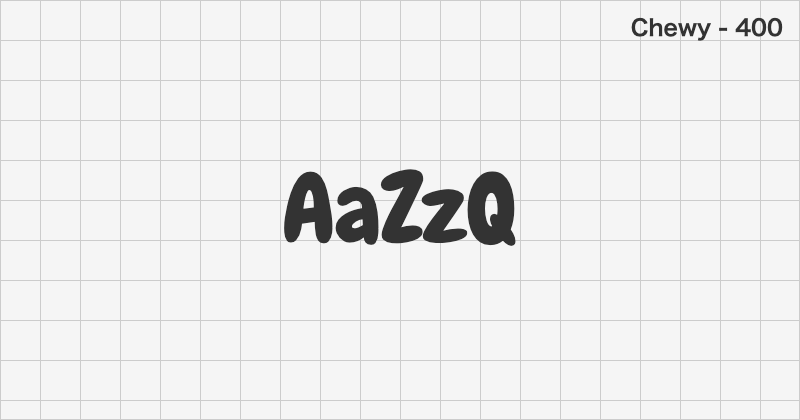
Chewy – Display Fonts Free for Commercial Use
Chewy is a playful typeface that invites users to engage with its fun and flavorful design. Its unique character makes it suitable for a variety of creative applications.
Chewy was developed by Sideshow, with the intention of crafting a font that brings joy and creativity to typographic design. The design emphasizes a sense of whimsy and approachability.